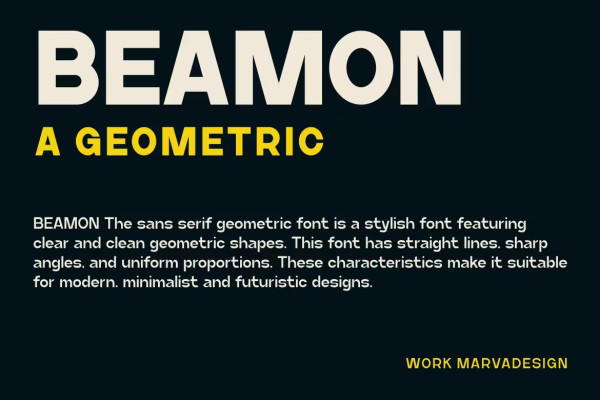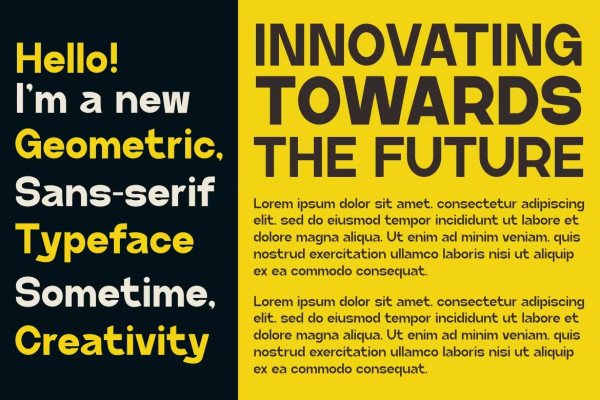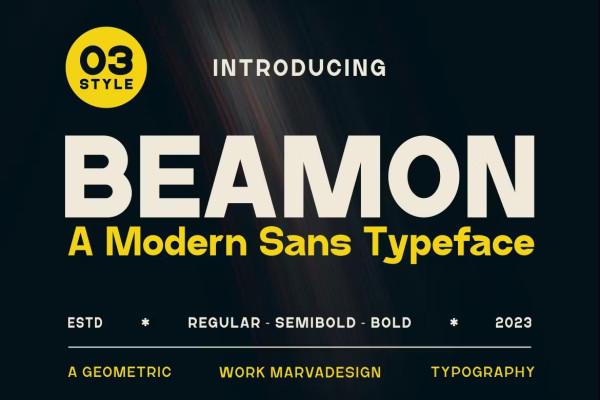
Beamon Font
Beamon Font – Modern Font is a bold and authentic display font. The font is suitable for any branding projects such as Logo, template design, products and many more. She is exceptional in a wide range of contexts